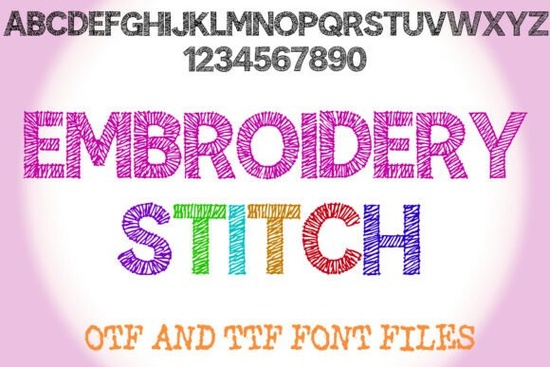
If you're looking for a display font that feels handmade not just styled to look that way the Embroidery Stitch Font is a thoughtful choice. It’s not a script or a brush font with faux texture; each character is built from deliberate, thread-like strokes that echo the rhythm and variation of real hand embroidery. That means subtle overlaps, slight irregularities, and gentle tapering at stitch ends details that give it quiet authenticity. It works especially well when you want your design to whisper “made with care,” whether you’re labeling a batch of linen tea towels or designing a logo for a small-batch yarn shop.
When does this font feel most at home?
It shines in contexts where warmth and tactility matter more than sharp precision. Think: packaging for organic baby clothes, invitations for a craft workshop, chapter headers in a beginner’s sewing guide, or social media graphics for a handmade soap brand. Because it’s a display font not meant for body text it’s best used at larger sizes (36pt and up) where the stitch detail reads clearly. You’ll notice it holds up beautifully on both screen and print, especially when paired with clean sans-serifs like Montserrat or Lato for contrast.
It’s also a natural fit alongside other hand-crafted fonts. For example, if you’re building a seasonal collection for a holiday craft bundle, pairing the Embroidery Stitch Font with the playful dot-based rhythm of Cute Dot Duo adds visual variety without clashing. Or try layering it over a subtle linen texture background you’ll get instant depth and dimension without extra design work.
Who uses it and how?
Small businesses often choose it for product labels and tags because it signals craftsmanship without needing illustrations. A candle maker might use it for jar labels (“Lavender & Linen”), while a quilt pattern designer might apply it to cover pages or class handouts.
Craft bloggers and educators find it helpful for breaking up long-form tutorials using it for section headers like “Step 3: Backstitch the Outline” adds friendly emphasis without shouting. And since it’s fully compatible with Cricut Design Space and Silhouette Studio (as a standard OTF), it’s easy to cut directly onto fabric or iron-on vinyl.
Print-on-demand sellers appreciate how it stands out in marketplace thumbnails. Unlike overly ornate scripts, it reads quickly at small sizes and carries strong thematic relevance so shoppers browsing “sewing gifts” or “crafty apparel” instantly recognize the vibe.
What about technical details?
The font includes uppercase letters, numerals, and basic punctuation. It doesn’t support multilingual characters or OpenType features like ligatures or stylistic alternates so it’s intentionally simple, not feature-rich. That simplicity is part of its strength: it loads fast, embeds reliably in PDFs, and avoids compatibility hiccups across platforms. You’ll get clean vector output every time, whether exporting from Illustrator or typing directly in Canva.
For those curious about similar textures, the Over the Lazy Font offers a looser, bolder hand-drawn feel great if you want something more whimsical and less literal than stitches. But if your goal is to evoke needlework specifically, nothing else on Creative Fabrica matches the Embroidery Stitch Font’s focused execution.
It’s worth noting that while many decorative fonts lean into nostalgia or retro kitsch, this one avoids cliché. There’s no forced “vintage” distressing or cartoonish exaggeration just honest, quiet craft energy. That makes it easier to pair with modern layouts and still feel cohesive.
How to use it thoughtfully
Avoid overloading a layout with too much texture. Since the font itself carries visual weight, keep backgrounds light and uncluttered. White space isn’t empty it’s breathing room for the stitches to speak.
If you’re pairing it with photography, try using it over softly blurred fabric shots rather than high-contrast product photos. The contrast between crisp thread lines and soft focus reinforces the handmade idea without competing.
And remember: this isn’t a substitute for actual embroidery digitizing software but it is a smart, fast way to bring that aesthetic into branding, web, or packaging when stitching isn’t practical.
- Use it for headlines, logos, and short phrases not paragraphs
- Pair with neutral, highly legible fonts for supporting text
- Test print samples before final production thread-style lines can soften on low-res printers
- Try it in muted tones (dusty rose, oatmeal, sage) for softer impact
- Save a version with simplified outlines if you need to scale down below 24pt